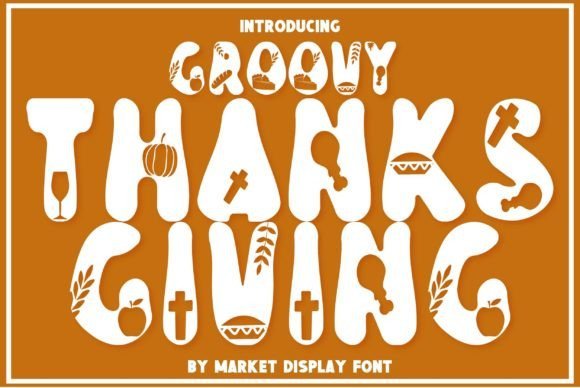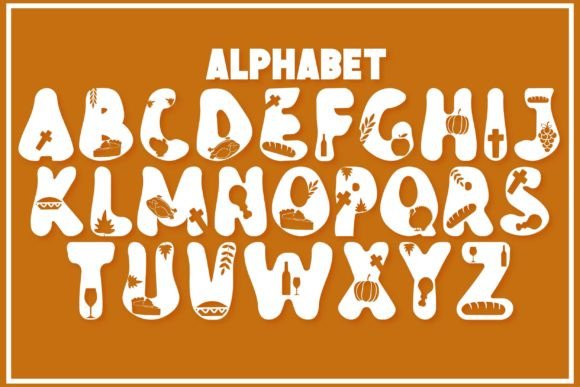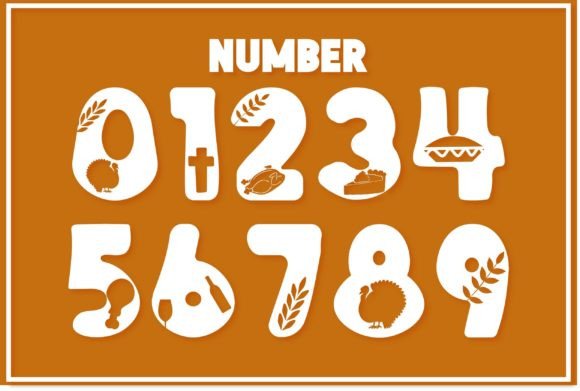
Get Ready to Spice Up Your Thanksgiving Designs
As you sit down to plan your Thanksgiving designs, you’re probably thinking about the perfect combination of warm colors, cozy textures, and festive graphics. But what really makes your designs pop? For many designers, it’s all about the right font. And that’s where the Groovy Thanksgiving Font comes in – a bold and chunky-lettered decorative font that’s guaranteed to add some serious excitement to your designs.
This versatile font is perfect for making your Thanksgiving designs come alive, whether you’re creating a menu, a invitation, or a social media graphic. With its groovy vibe, you can add a fun and playful touch to any project. And the best part? It’s incredibly easy to use, making it a valuable addition to any designer’s toolkit.
Groovy Thanksgiving Font Key Features
- Font Family: A unique, hand-drawn font family designed specifically for Thanksgiving and autumn-themed designs.
- Character Count: Includes a wide range of characters, including uppercase and lowercase letters, numbers, and punctuation marks.
- Unique Characteristics: Features a playful, hand-drawn design with intricate details and textures, giving it a warm and inviting feel.
Groovy Thanksgiving Font Review
Overall, I’d say the Groovy Thanksgiving Font is a fun and quirky addition to any holiday design project. ✨ Here are a few things that work well:
- Unique and playful style: This font really captures the essence of a groovy Thanksgiving celebration.
- High-quality glyphs: The font is well-designed and has a nice, crisp look to it.
- Good legibility: Even in larger sizes, the font remains readable and easy to understand.
- Limited character set: The font only includes uppercase and lowercase letters, with a few special characters.
- No bold or italic weights: If you need to emphasize certain text, you’ll have to use a different font.
- May not be suitable for formal designs: The font’s playful style may not be suitable for more formal or traditional designs.
Overall, I’d recommend the Groovy Thanksgiving Font for designers looking to add a fun and quirky touch to their holiday designs. Just be aware of its limitations and consider using it in conjunction with other fonts to get the look you want.